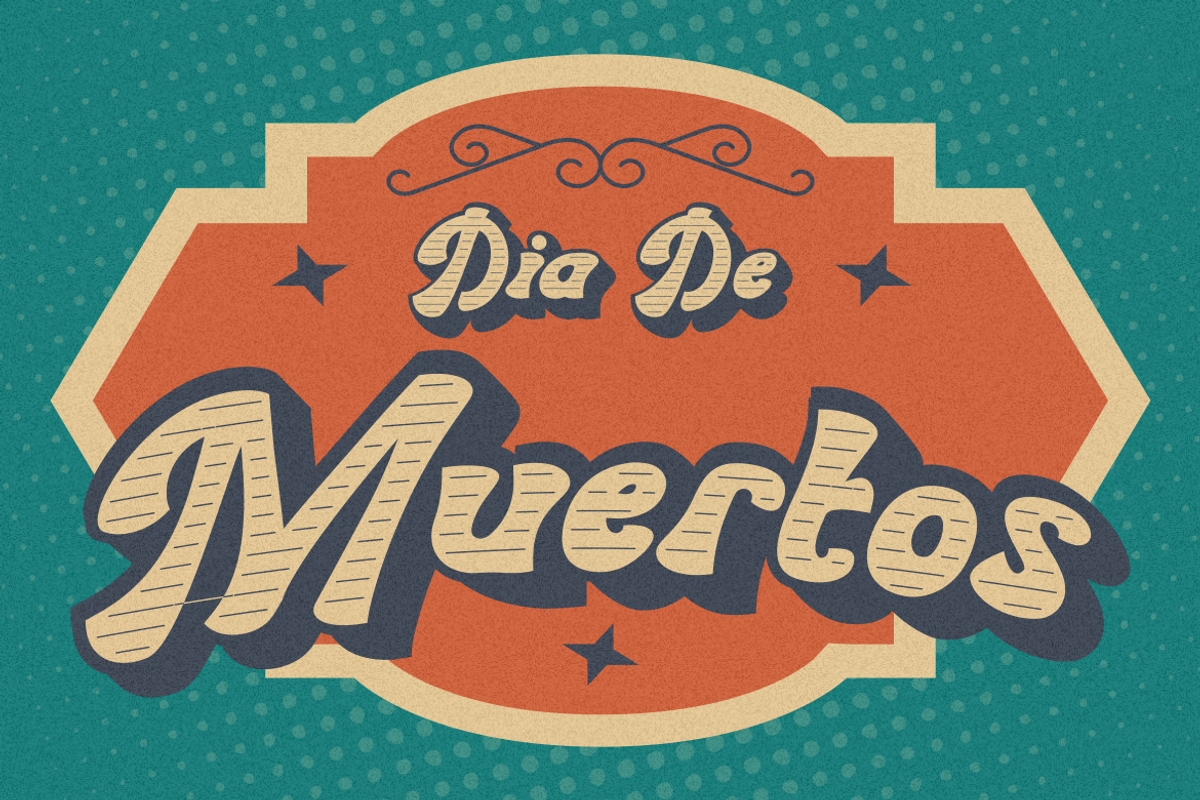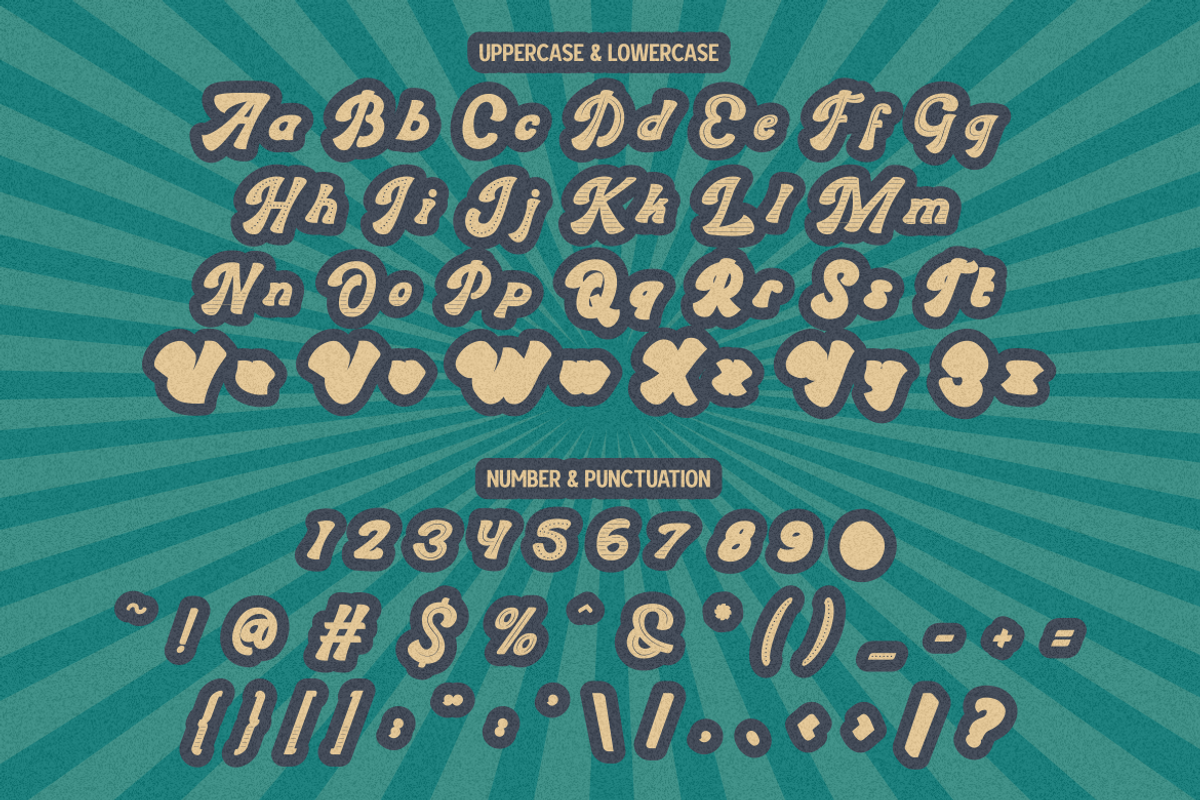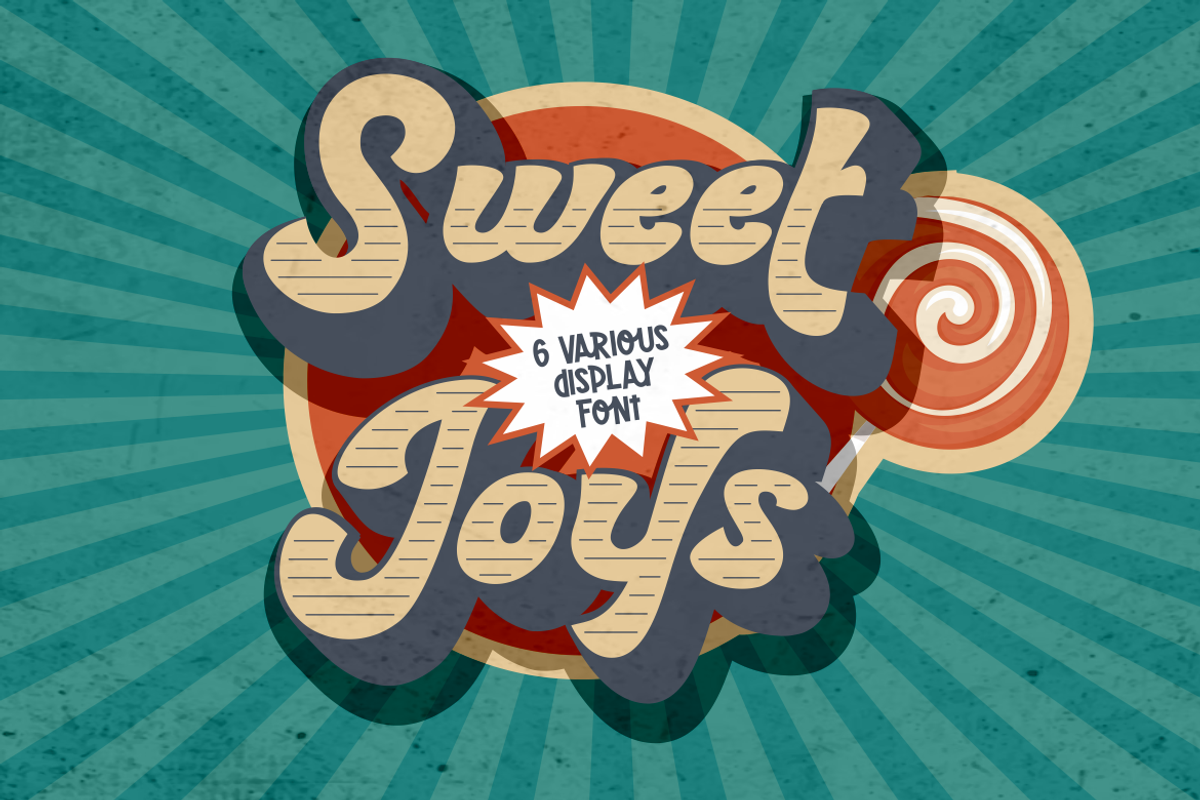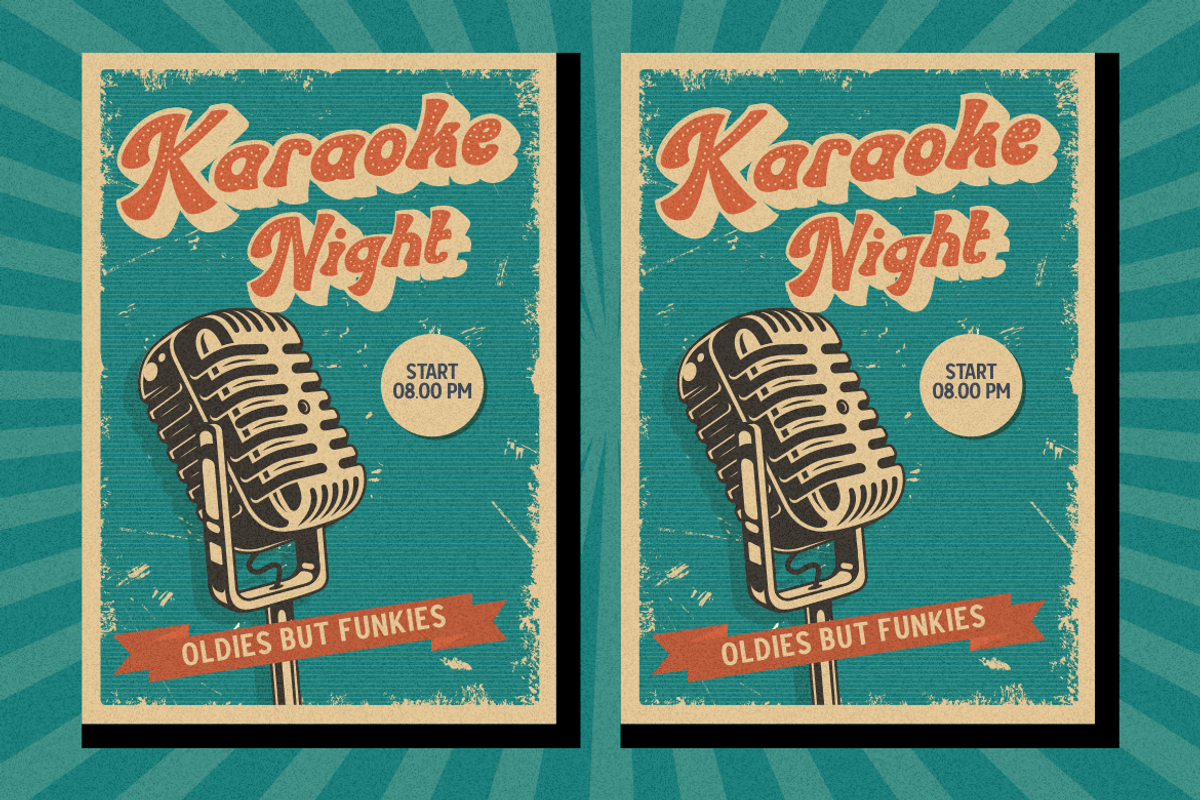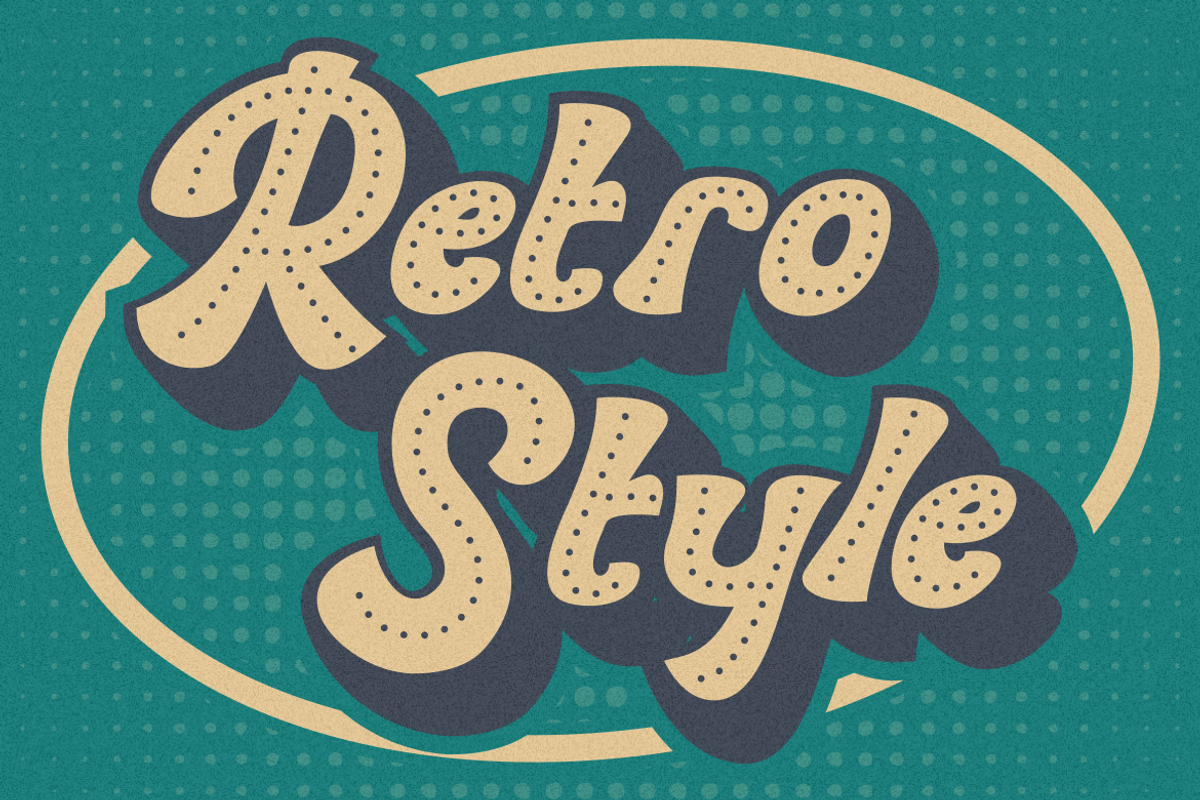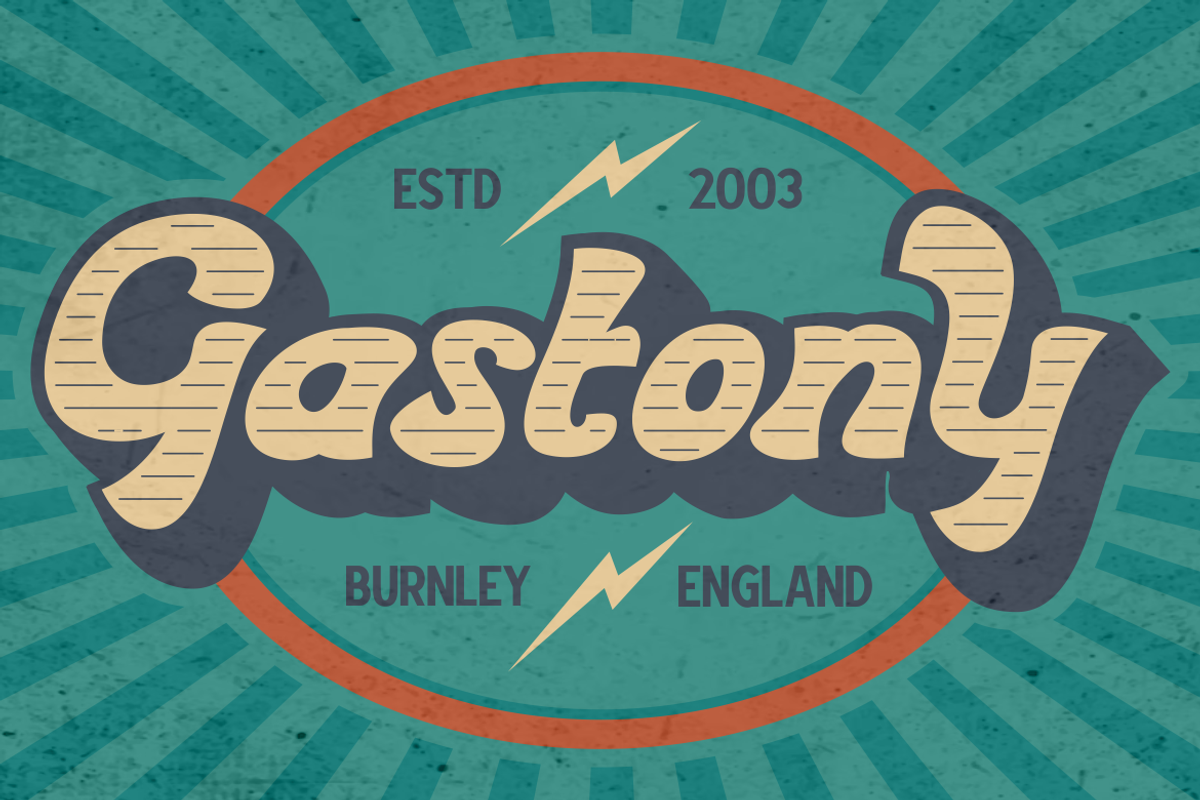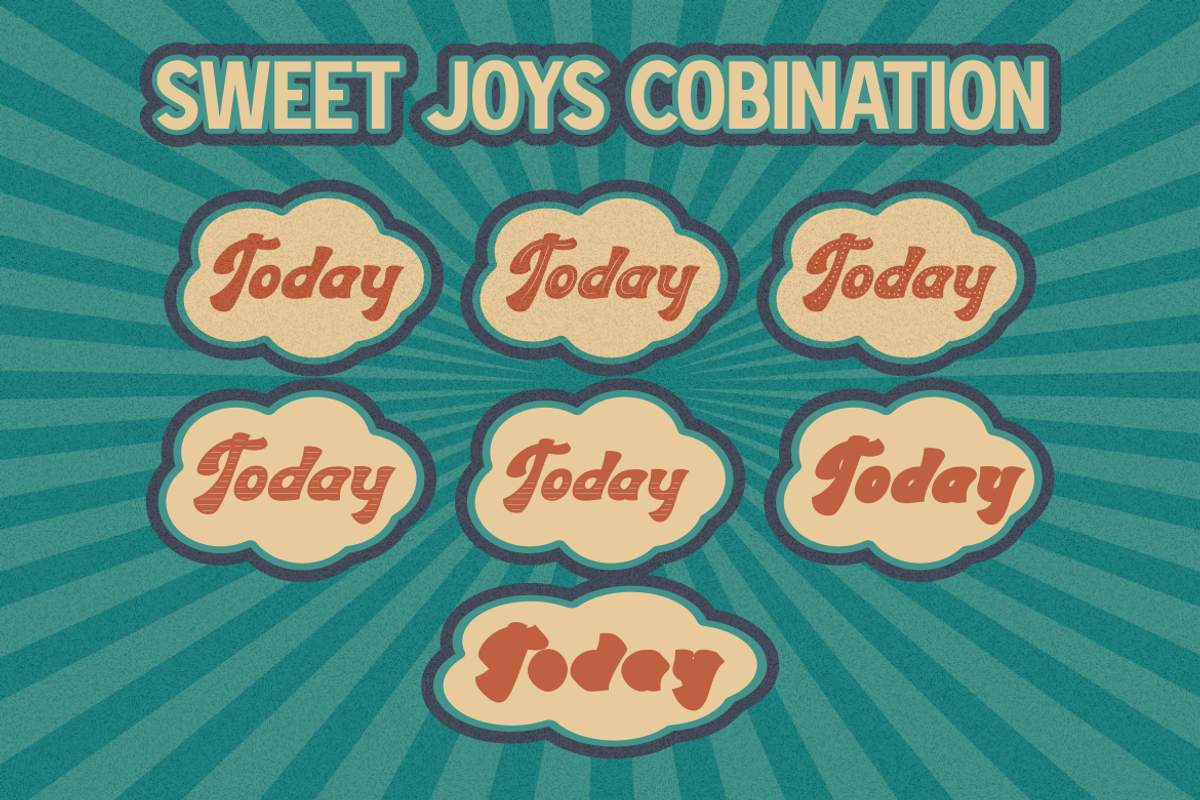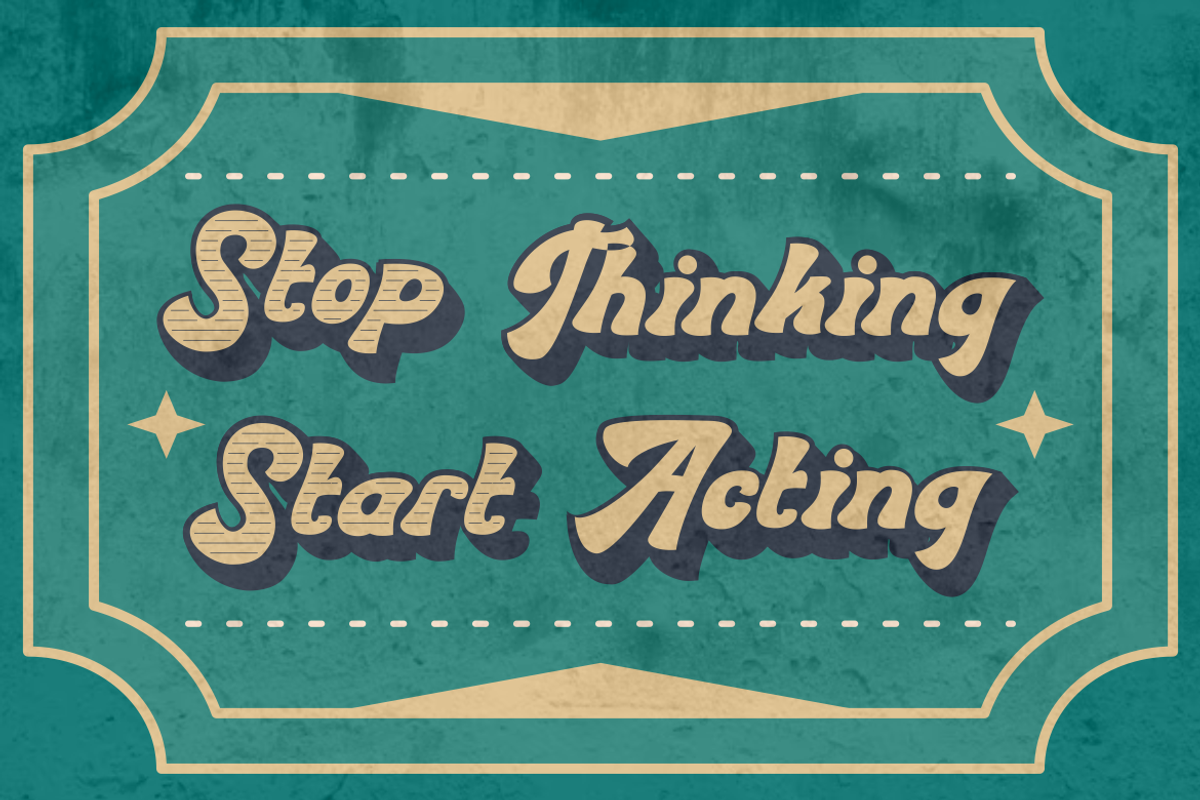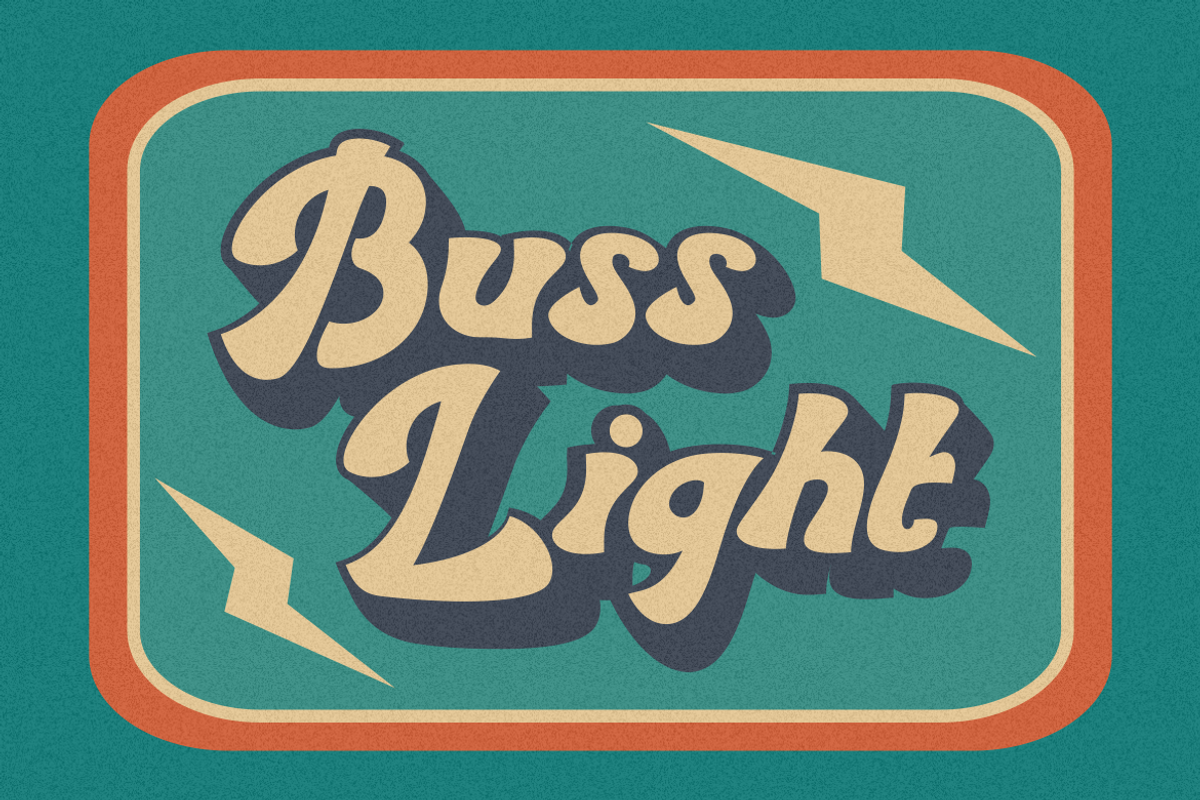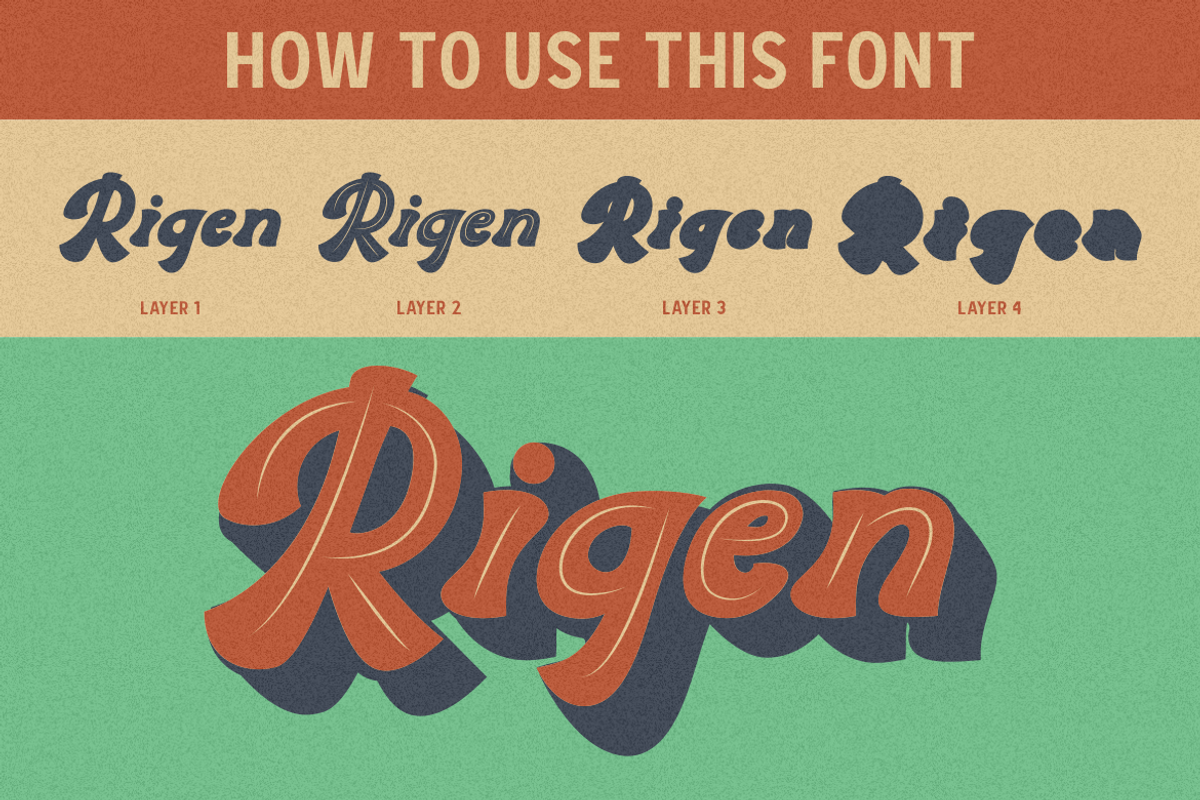
Sweet Joys - Display Font
Sweet Joys - Display Font is a striking script typeface with a bold and retro style. It boasts an extensive array of alternative characters, providing a wide range of design possibilities. What sets Sweet Joys apart is its supplementary layer font support, including line, outline, and shadow options, enabling you to create stunning effects and versatile combinations.
This font is equally effective when used alone or when combining its layer variations. It's a perfect choice for crafting logos, packaging, invitations, greeting cards, posters, magazines, titles, business branding, and designs with a retro or vintage theme. The bold retro aesthetic of Sweet Joys adds a touch of nostalgia and timeless charm to your creative projects.
With its versatile layer options, Sweet Joys offers countless design opportunities and is an excellent resource for creating stylish and captivating visuals.